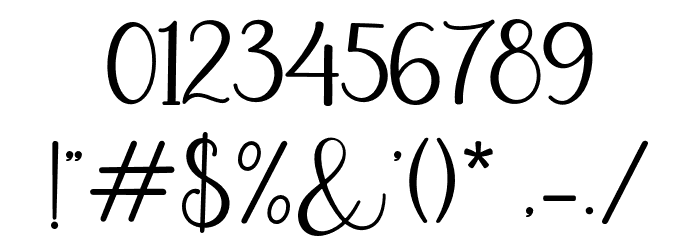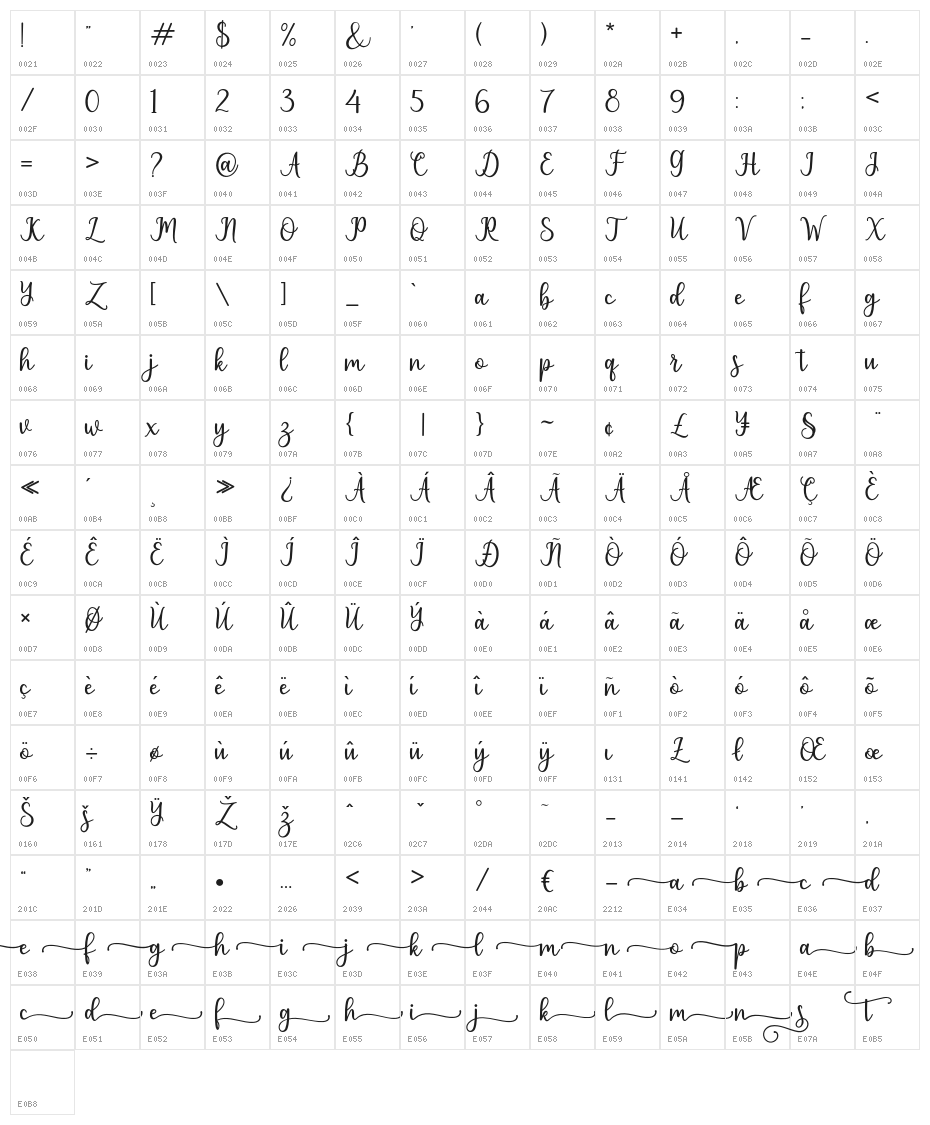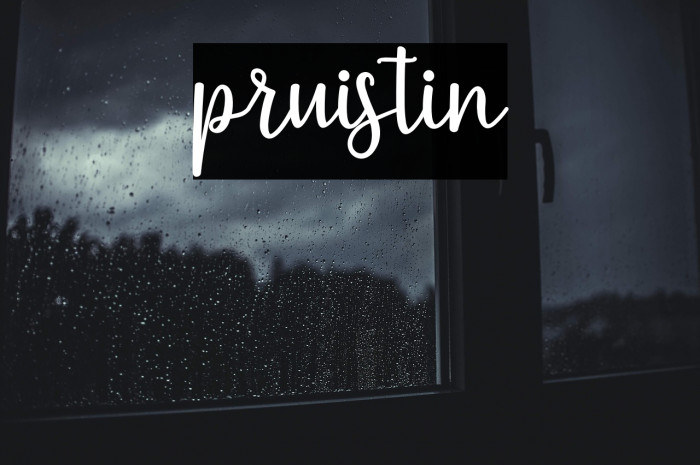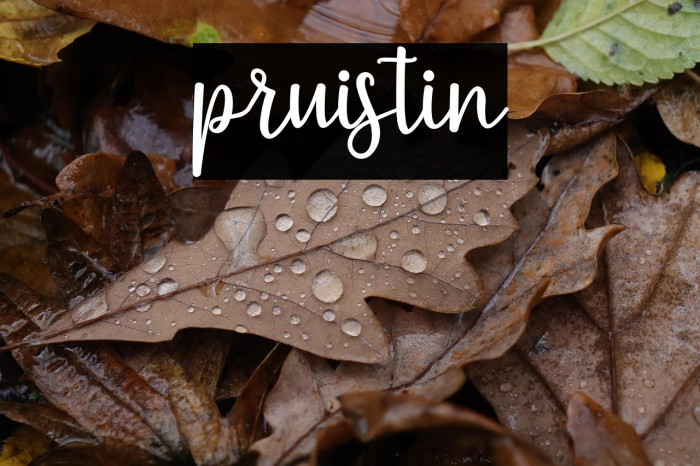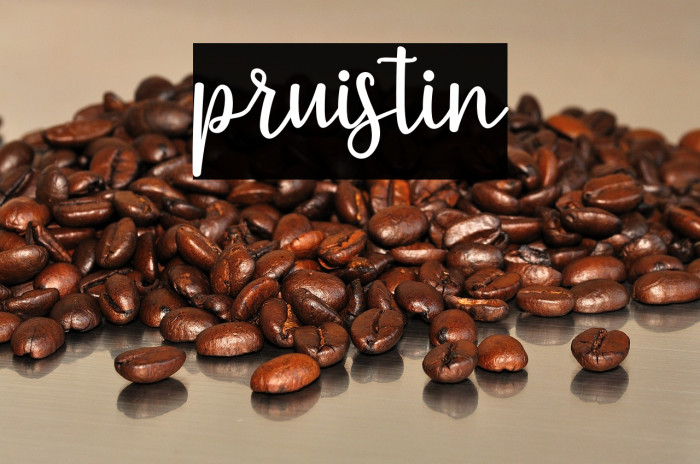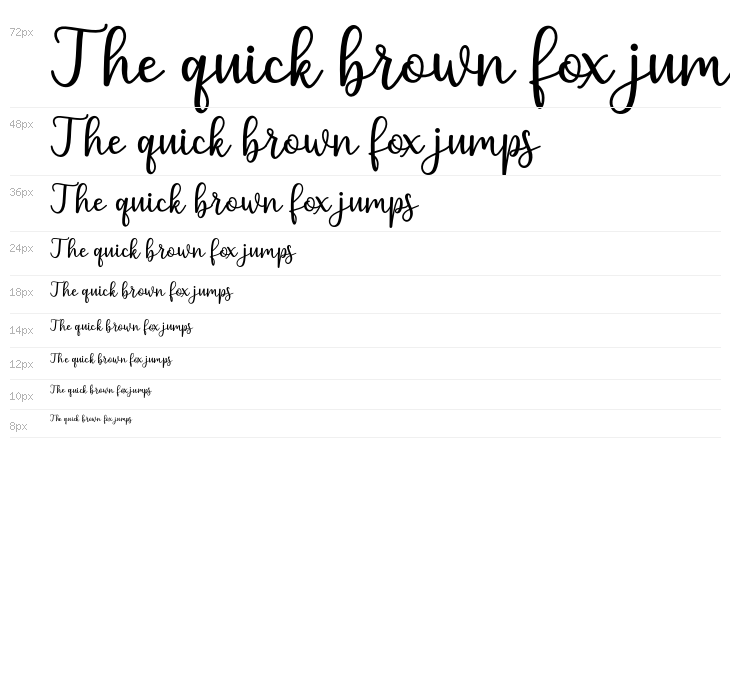
pruistin Font
pruistin Description
This font features a charming and fluid script style, characterized by its elegant and flowing curves. Each letter is crafted with a sense of movement, giving the text a lively and dynamic appearance. The uppercase letters are slightly more ornate, with loops and swirls that add a touch of sophistication. The lowercase letters maintain a consistent style, with rounded forms and smooth connections between characters. The numerals are clear and legible, matching the overall aesthetic of the font. Special characters are thoughtfully designed to complement the script style, making this font versatile for various uses.
| Proposed Projects | Ideal for wedding invitations, greeting cards, branding, and elegant packaging designs. |